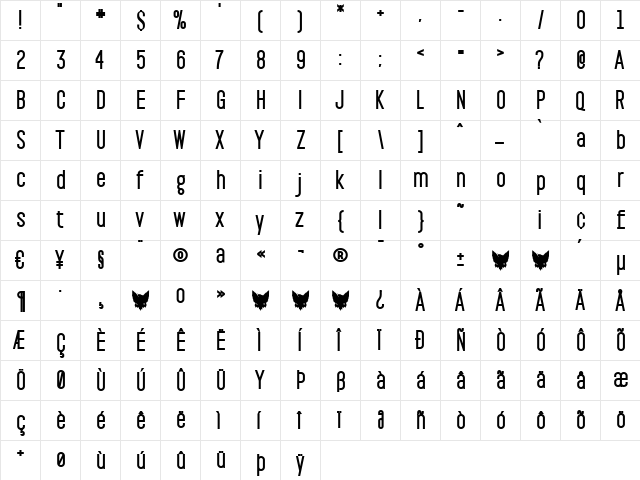
Pakt Black
| Foundry | YouWorkForThem |
| Designer | Michael Cina |
Design Context for Pakt Typeface
Pakt takes a measured approach to typography — its balanced proportions and neutral character make it a reliable workhorse for both digital and print work.